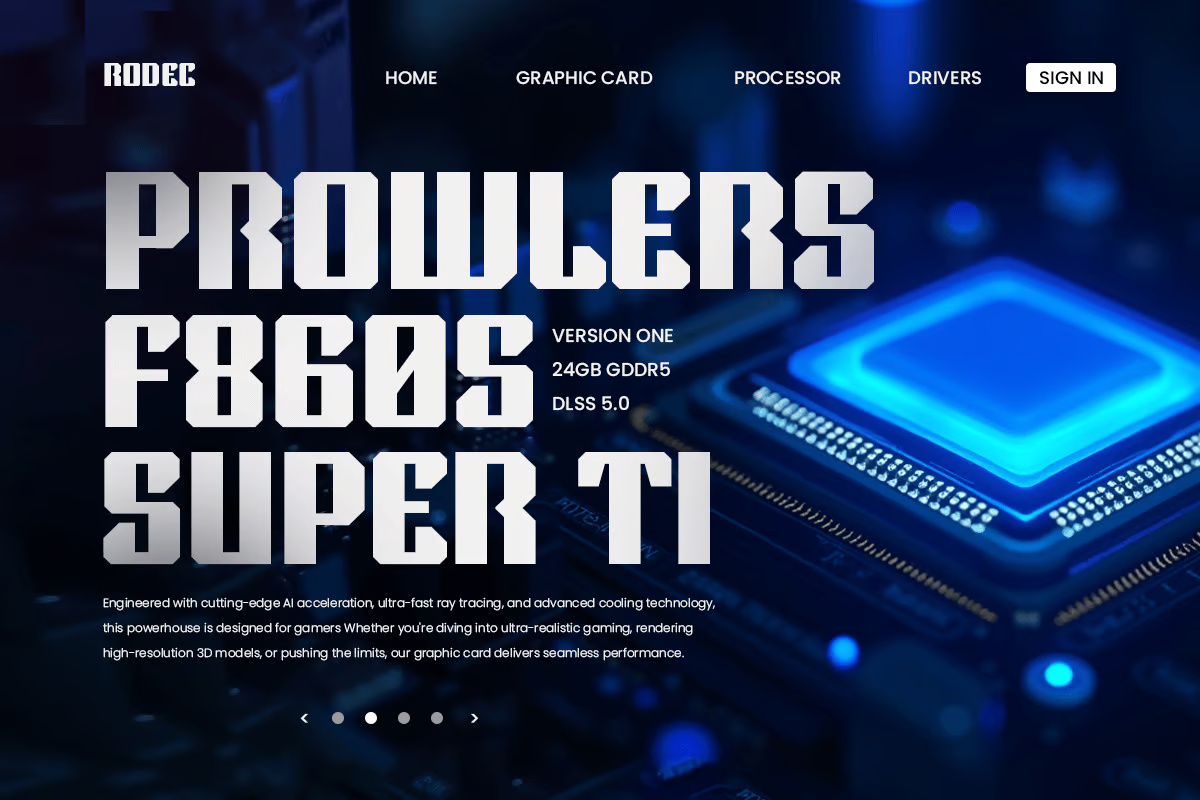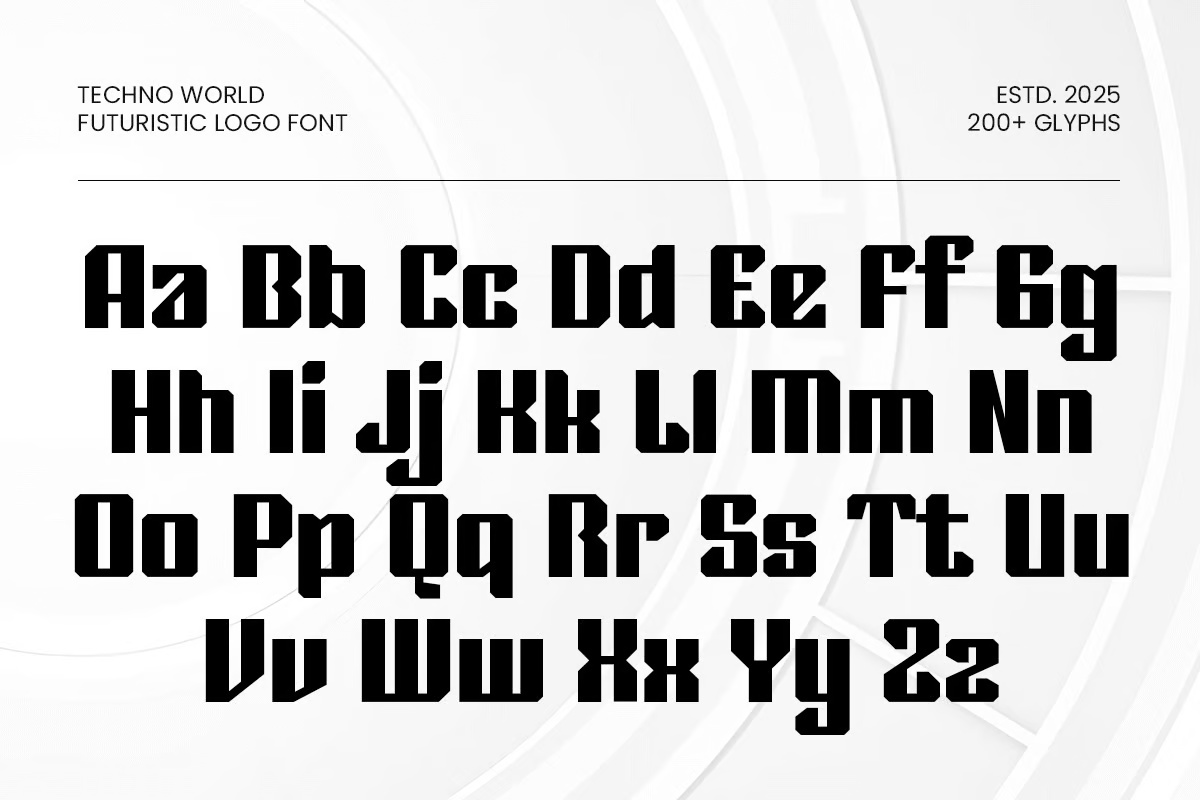
Techno World is a bold, futuristic font designed for high-tech branding, digital interfaces, and sci-fi-inspired visuals. With its sleek, geometric structure and cyberpunk aesthetics, this font is perfect for technology brands, gaming logos, space-themed projects, and electronic music covers.
Its sharp edges and bold letterforms create a strong, high-impact presence, making it ideal for futuristic logos, digital banners, esports branding, and sci-fi movie titles. The minimal yet edgy design ensures readability while maintaining a modern, cutting-edge look.
Techno World – Futuristic Sans-Serif Logo Font